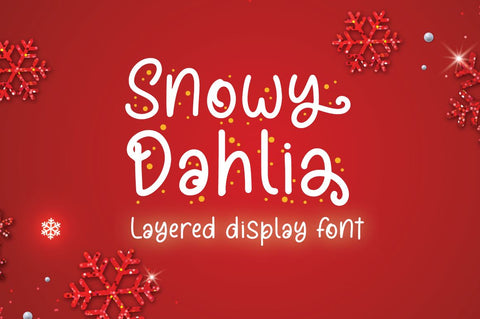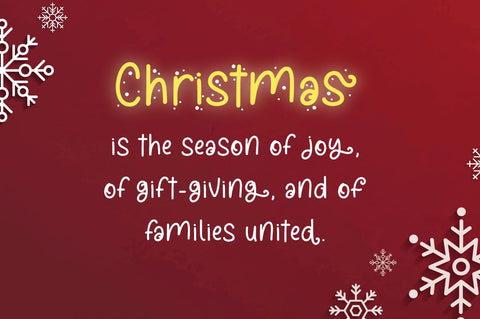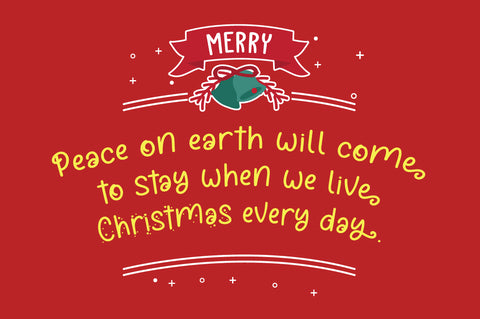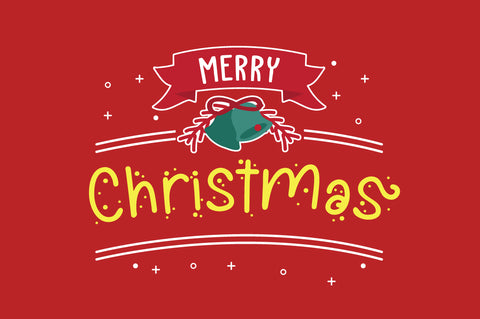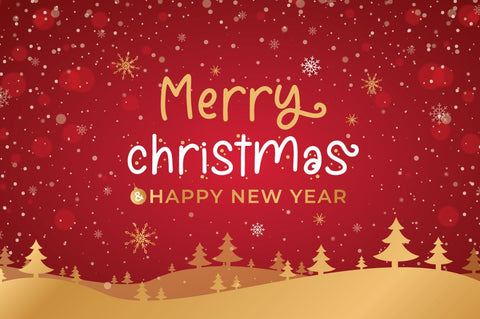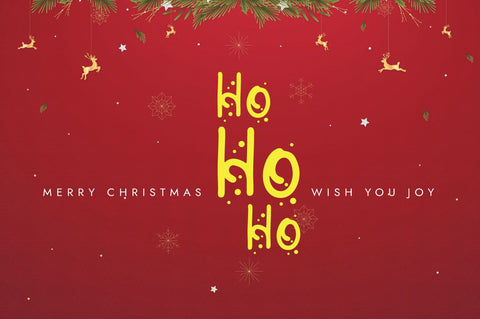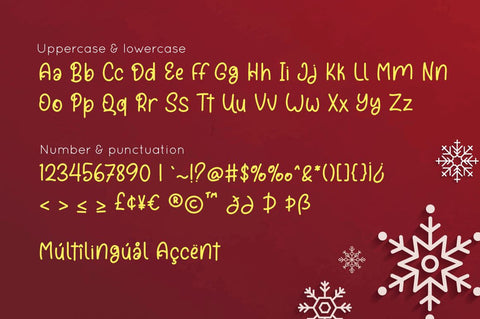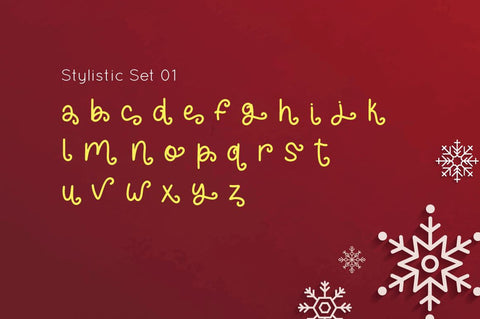
Snowy Dahlia - Christmas Font
Snowy Dahlia is a script christmas font with display snow font perfect for winter designs.
Combine it with Snowy Dahlia - ending swash to make an amazing swash effect on your letter!
Snowy Dahlia perfect for christmas promotion, branding, logo, invitation, stationery, social media post, product packaging, merchandise,
blog design, game titles, cute style design, Book/Cover Title and more.